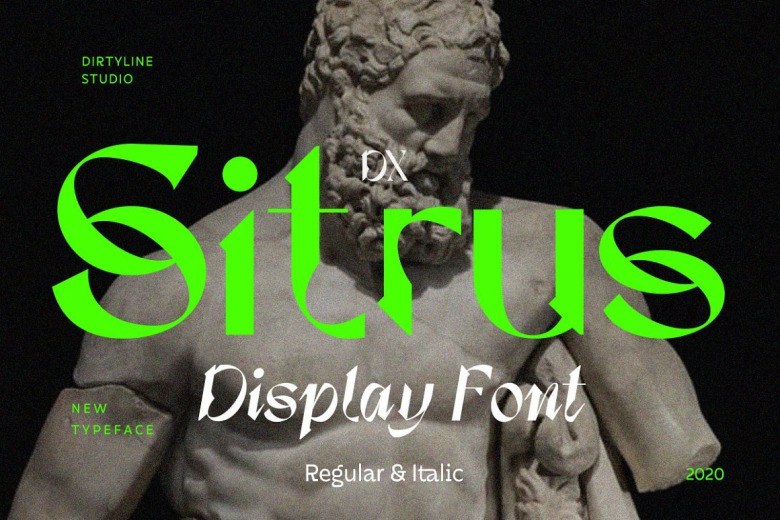
Dx Sitrus Display Font
Dx Sitrus Display Font is a serif display font which Dirtylinestudio designed to look strong but elegant. Dx Sitrus a new fresh & modern serif with a contemporary touches with strong shape! It works perfectly for creative project such as logo, T-shirt / apparel, badge, invitation, packaging,headline, poster, magazine, greeting card, and wedding invitation. You can access the open type features and multilingual on mostly Adobe programs, such as Adobe Indesign, Adobe Illustrator, Adobe photoshop etc.